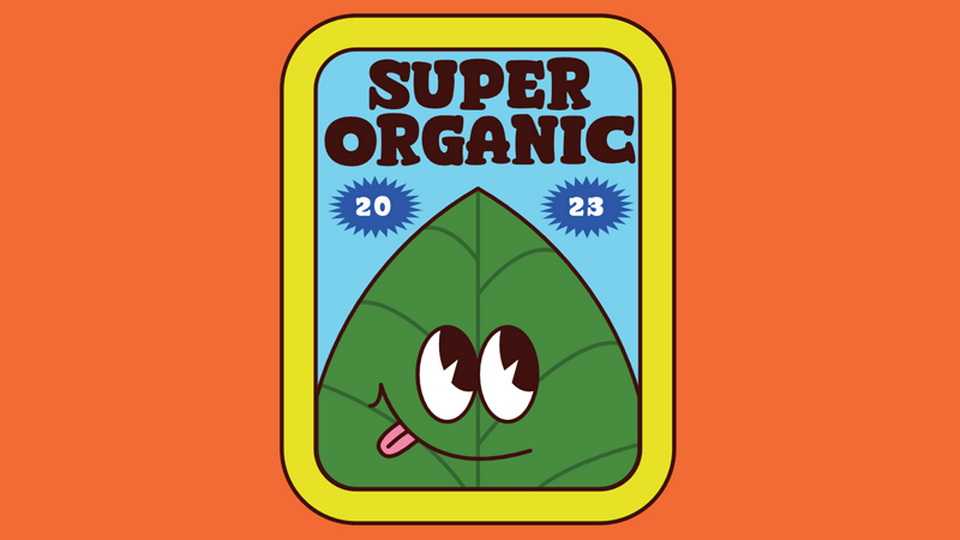
Download Super Organic font, a cartoon typeface that bursts with a playful exuberance and undeniable boldness. Each character is designed with whimsical letterforms that radiate energy and charm.